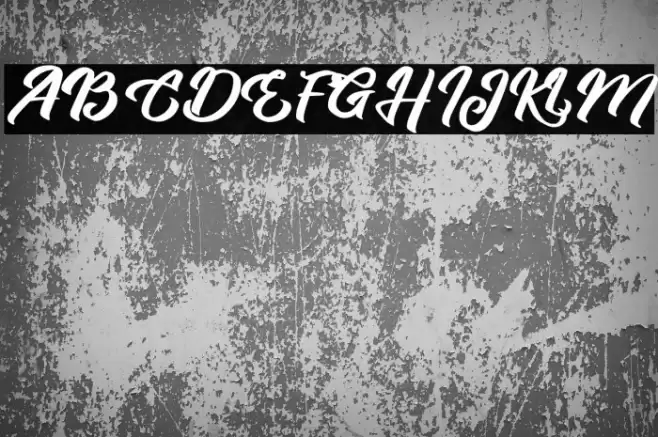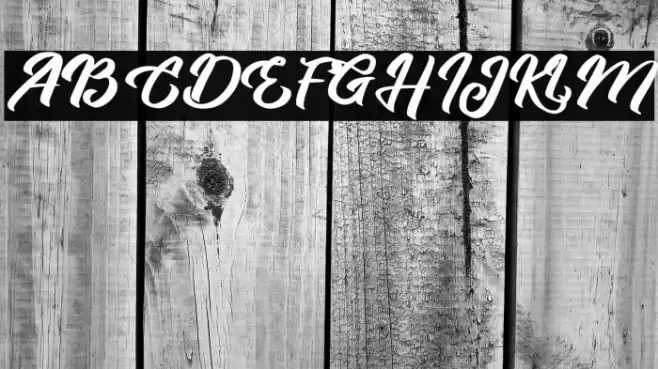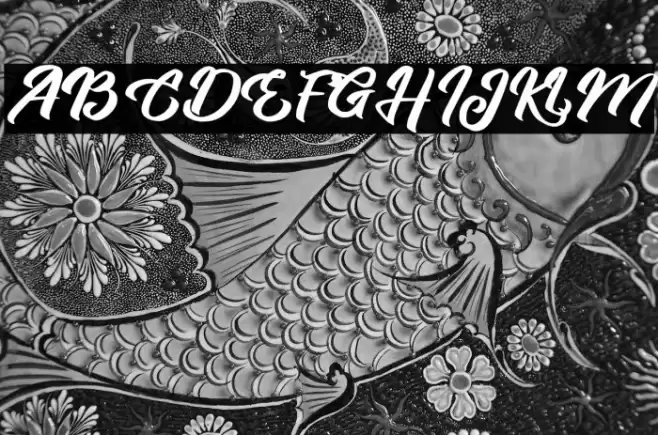
QuenyFREE Font
QuenyFREE Description
This font features a dynamic and flowing script style, characterized by its elegant and cursive letterforms. The uppercase letters exhibit a bold and confident presence, with sweeping curves and flourishes that add a touch of sophistication. The lowercase letters maintain a consistent flow, with some characters featuring distinctive loops and tails that enhance the overall aesthetic. The font's design is both artistic and legible, making it suitable for a variety of creative applications. Its unique style captures attention while maintaining readability, making it an excellent choice for projects that require a personal and artistic touch.
A dynamic and elegant script font with flowing, cursive letterforms from Uncategorized fonts.
- Proposed Projects: Ideal for wedding invitations, greeting cards, branding, and logo design.
- Use Case: Logos, Headlines, Invitations